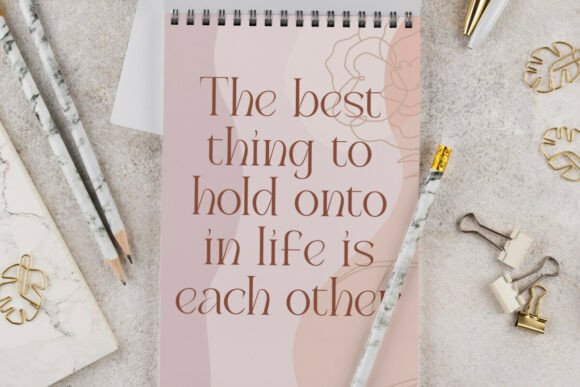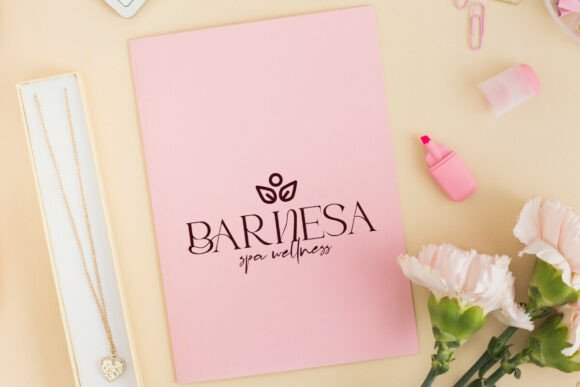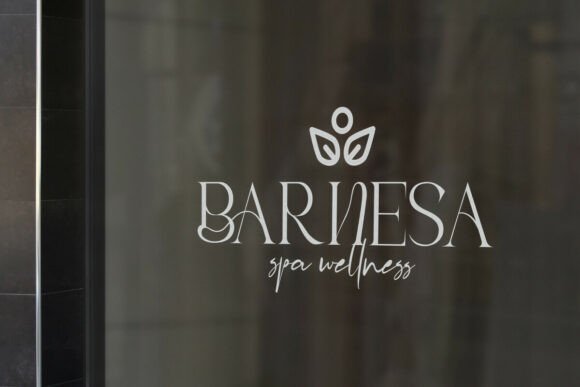
Introduction to Maura Hirmala  Font
The Maura Hirmala – a modern serif display font with elegant, high-contrast strokes and artistic flourishes.
Maura Hirmala is a stunning serif display font adorned with elegant floral petal ornaments and graceful curves Its refined beauty enhances typography across a wide range of creative applications.